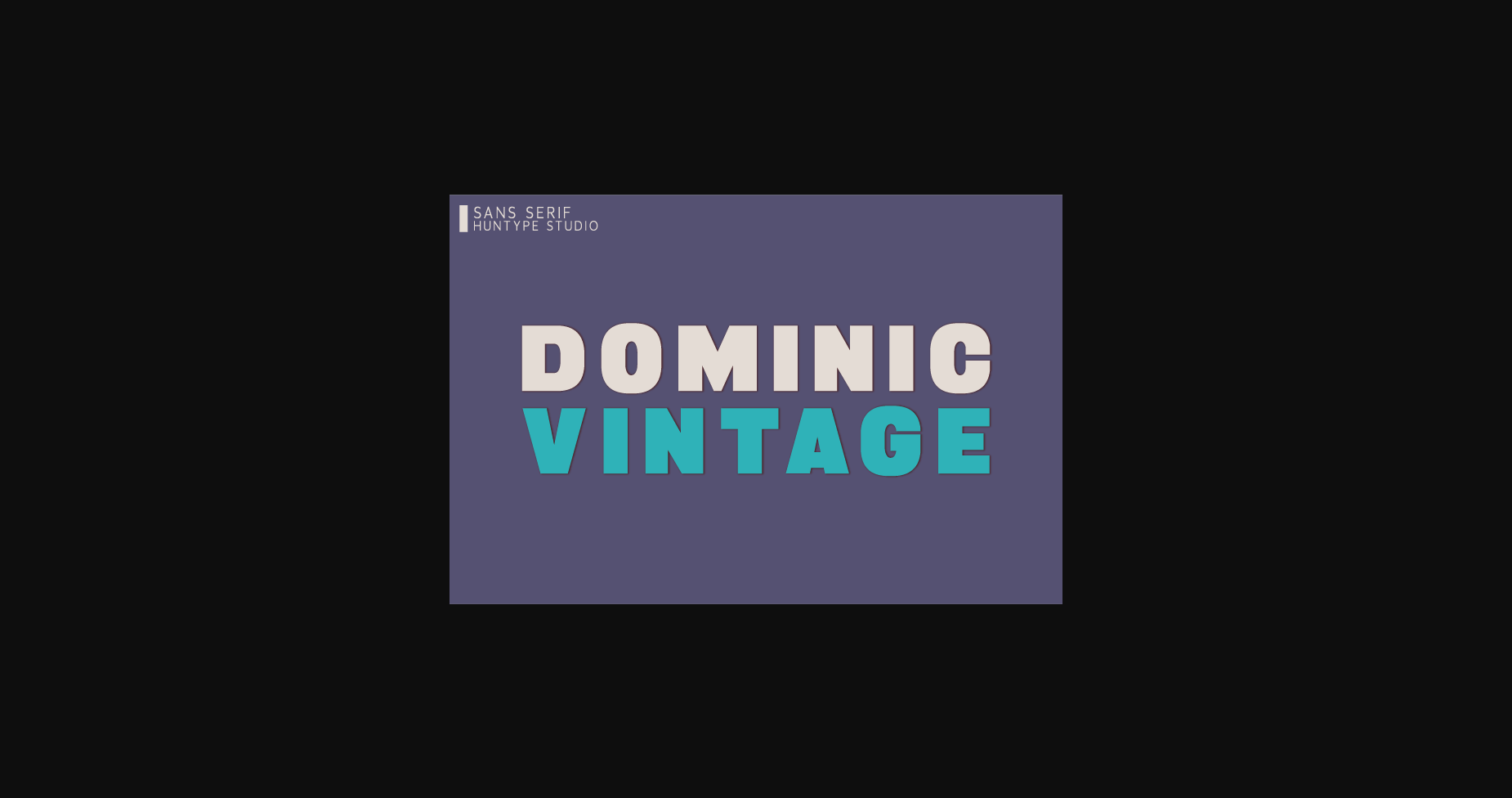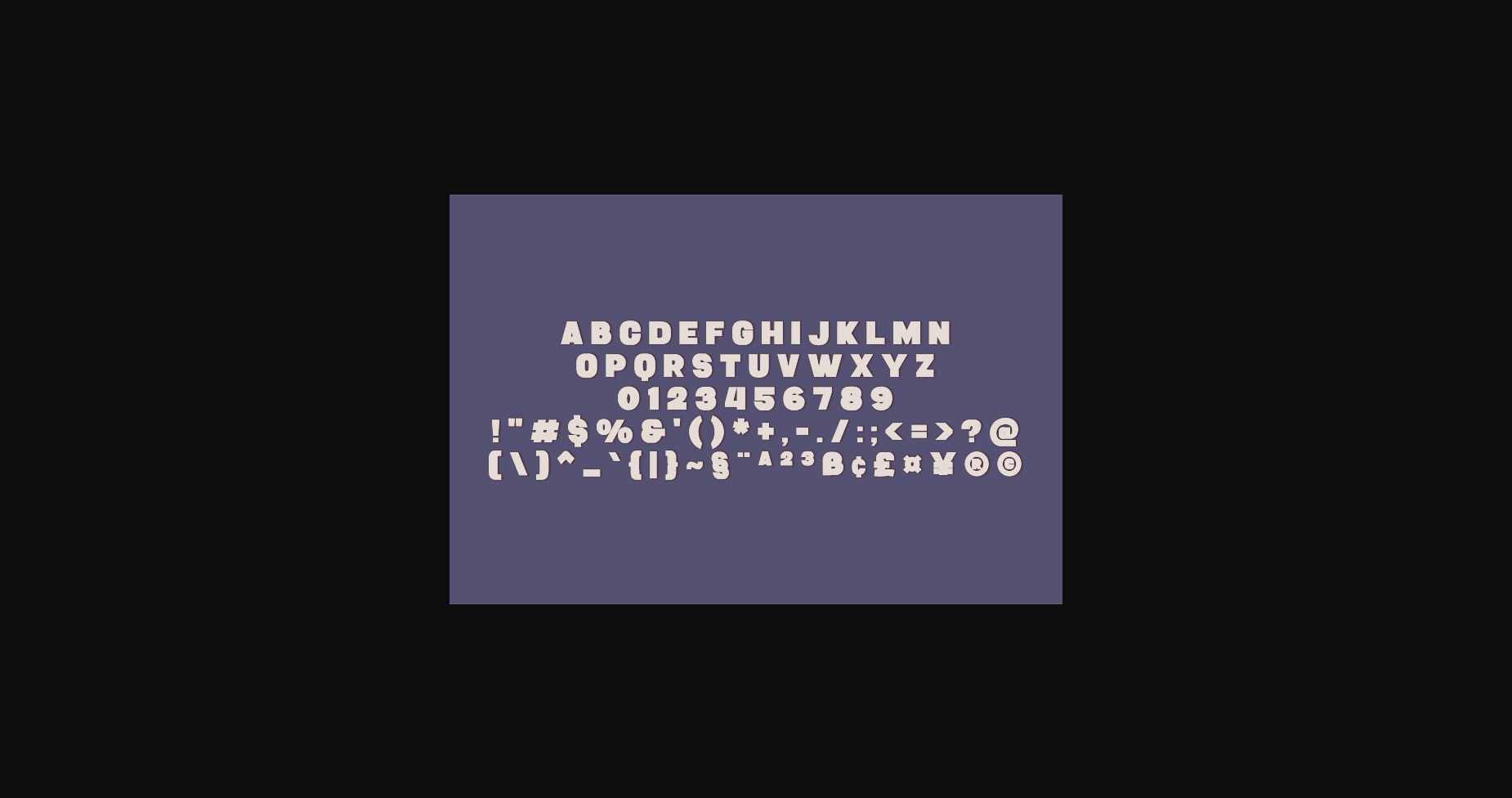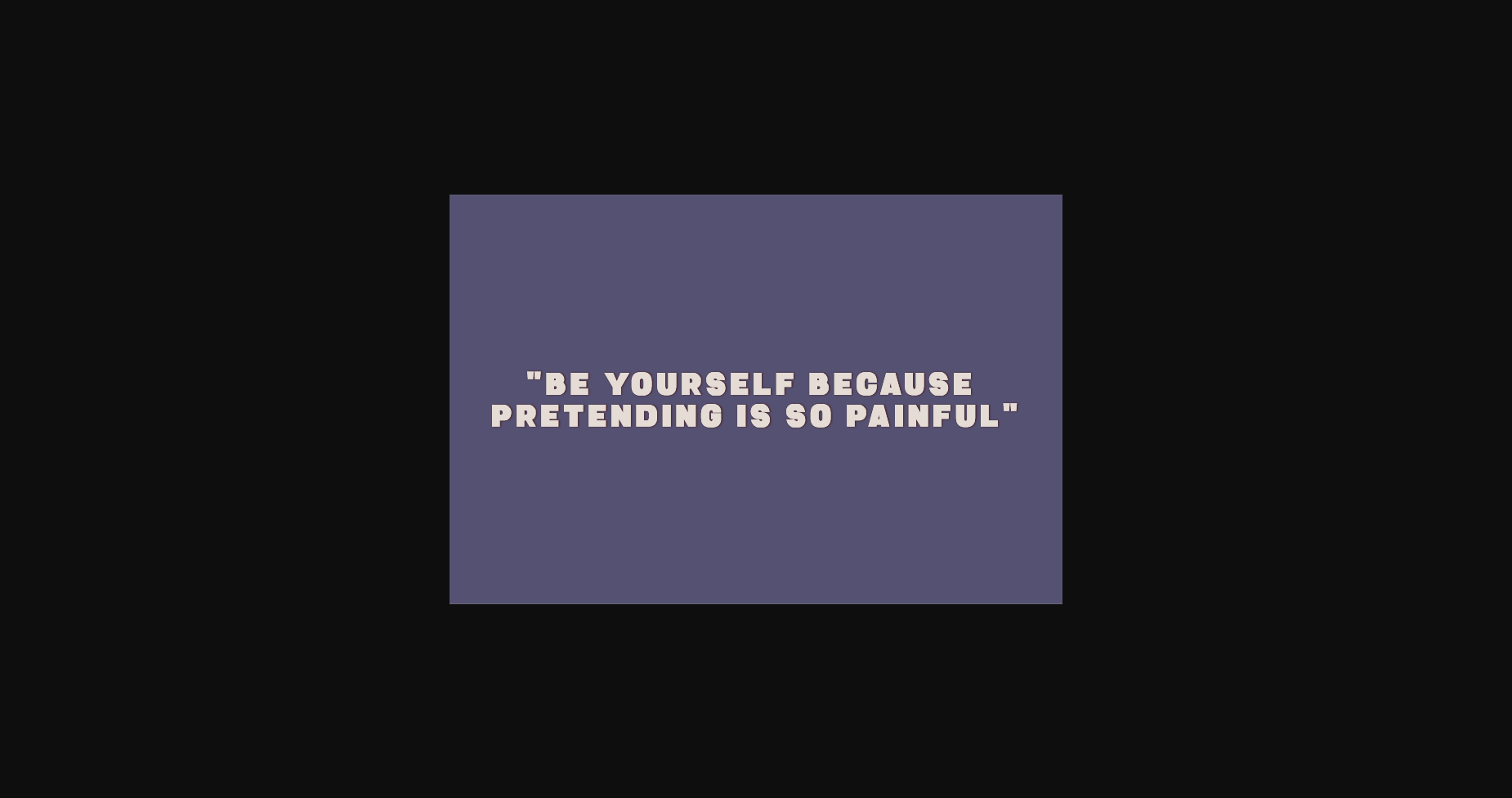
Dominic Vintage Font
Dominic Vintage is an amazing all-caps sans serif font. Versatile, smooth, and clean, it will look great in any creative context. Rechole works beautifully for logos, branding, and web headings.